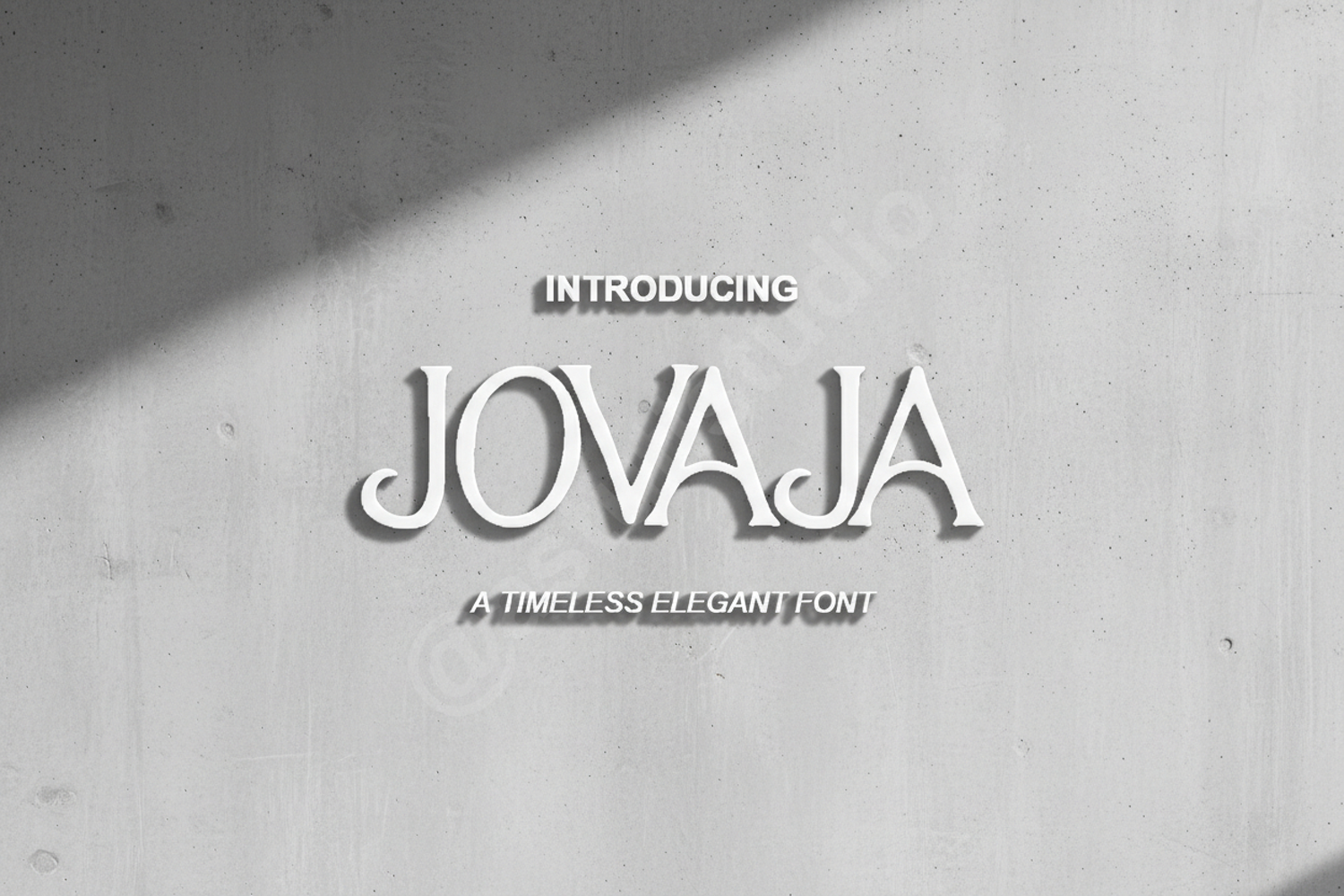
Jovaja - Modern Elegant Serif Typeface
Jovaja
Jovaja is a premium serif typeface that seamlessly blends classic sophistication with modern versatility. Crafted with meticulous attention to detail, this font features clean lines and balanced proportions that evoke a sense of luxury and timelessness. Whether you are working on a high-end fashion brand or a minimalist editorial layout, Jovaja provides the perfect typographic foundation for your creative vision.